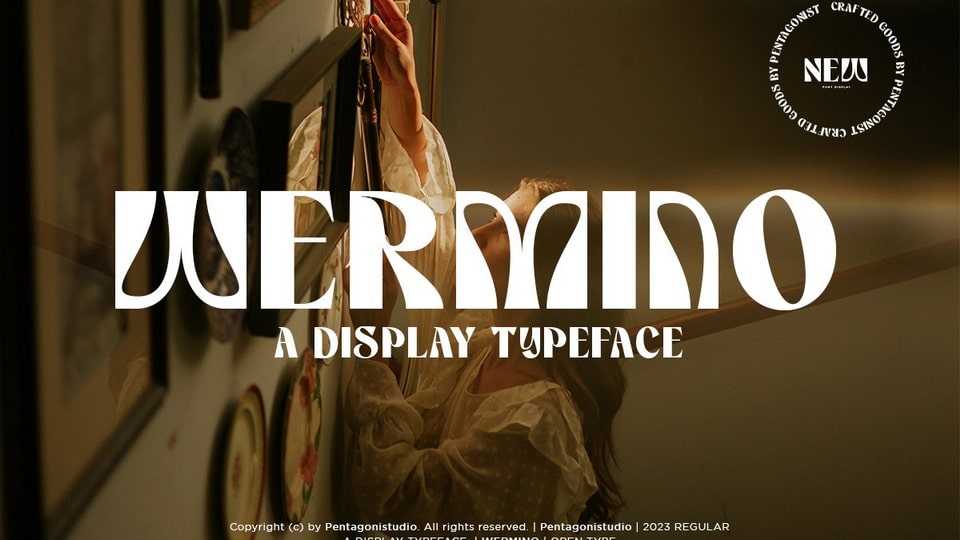
Download Wermino font, a distinctive and exclusive display typeface designed to make a bold statement. With its unique and intricate letterforms, Wermino font exudes a sense of exclusivity and sophistication.
Designer: Pentagonistudio